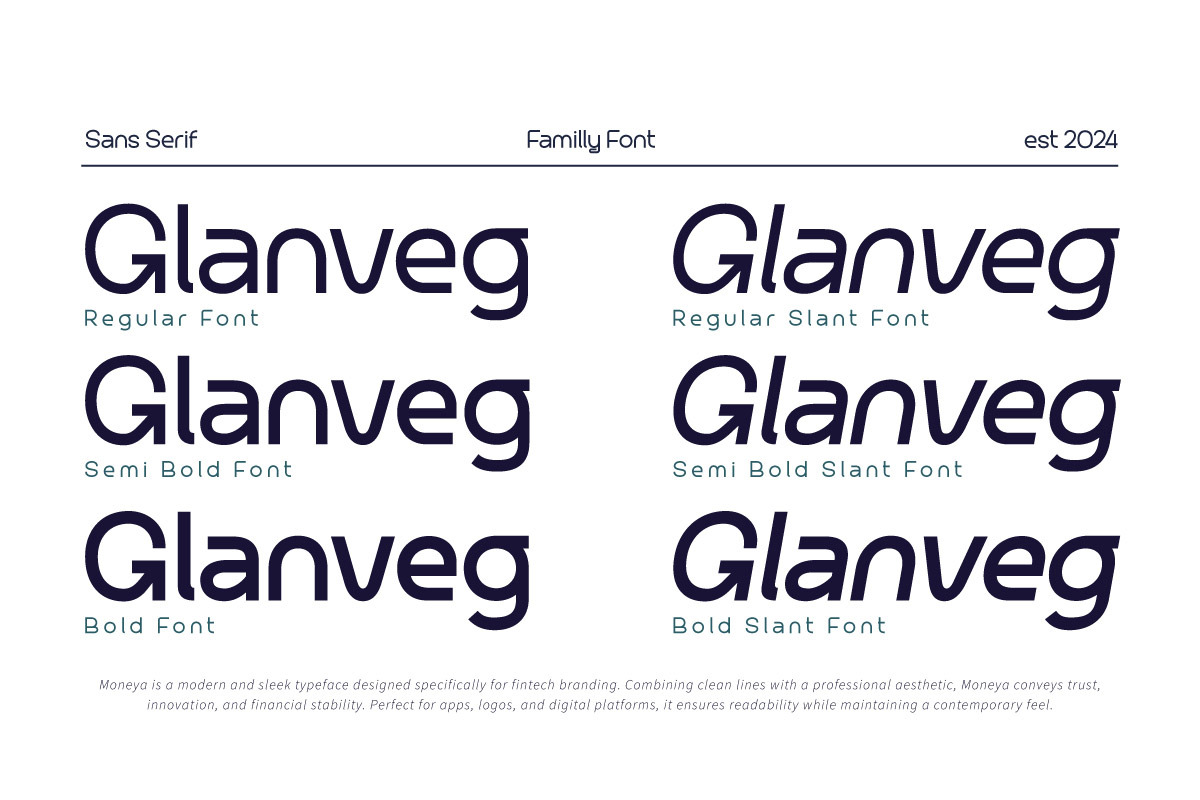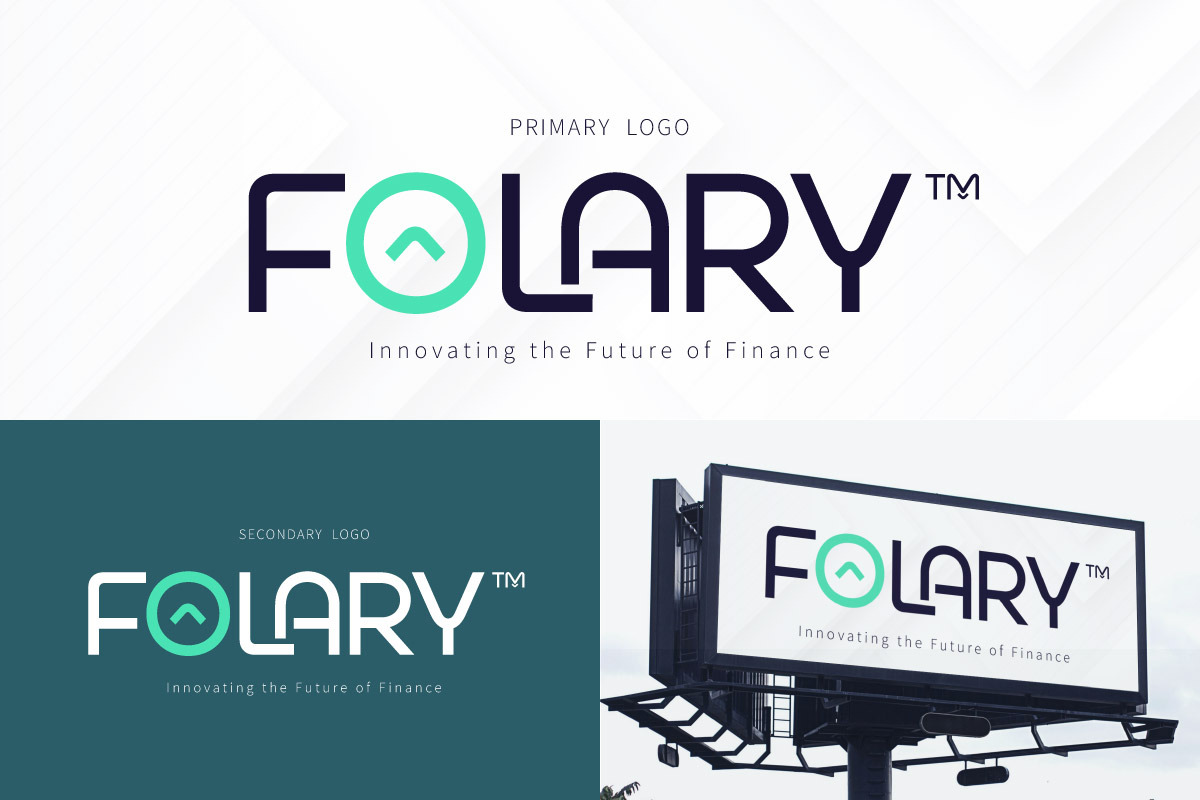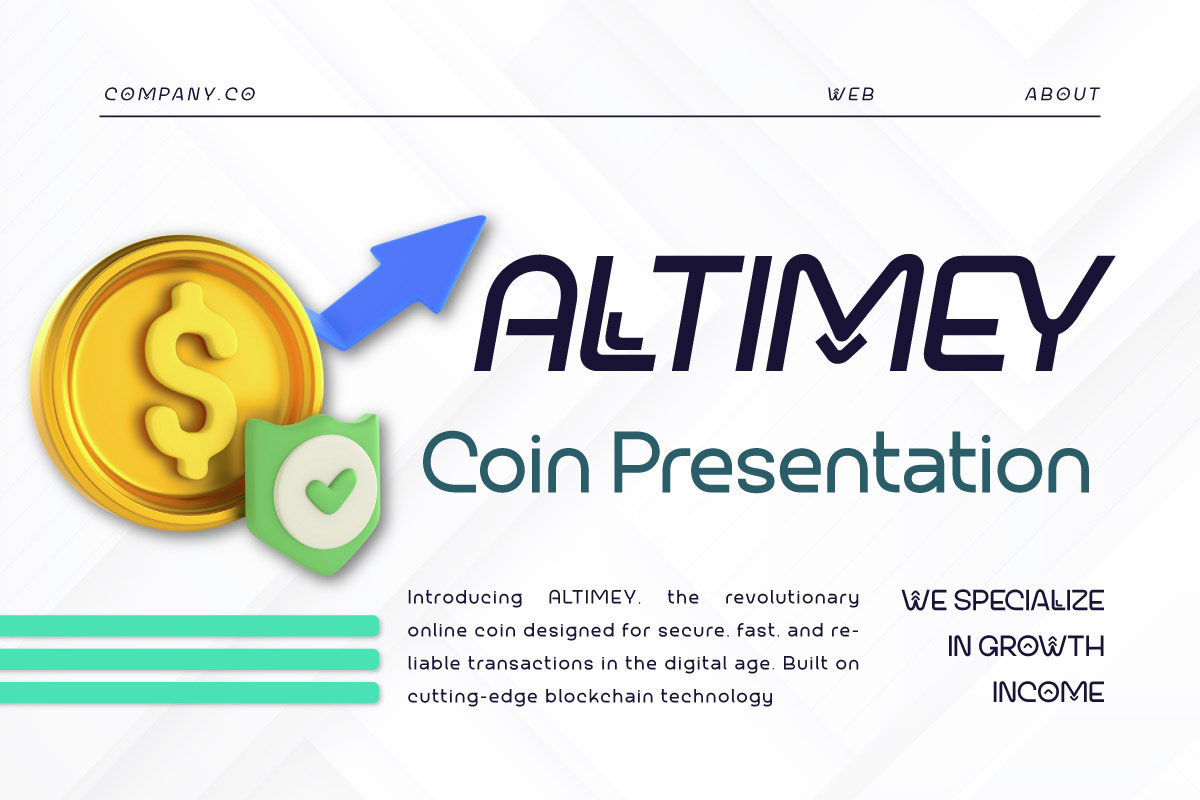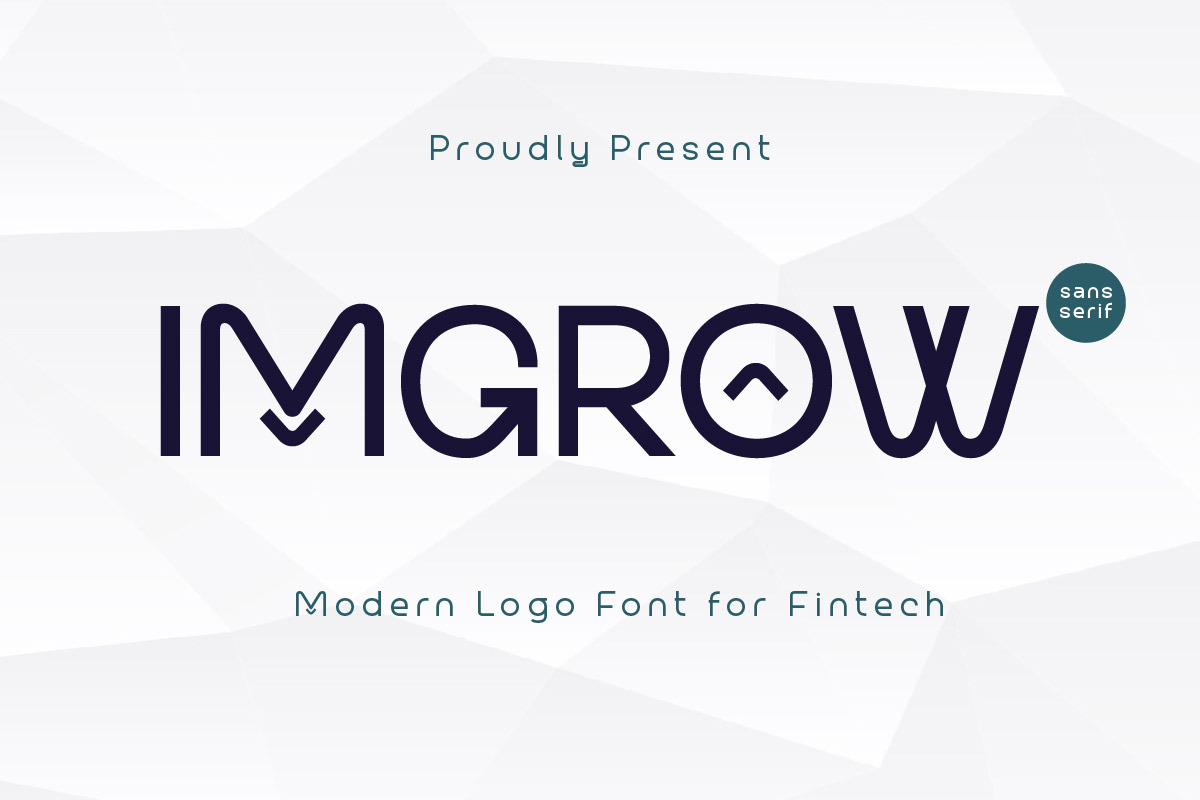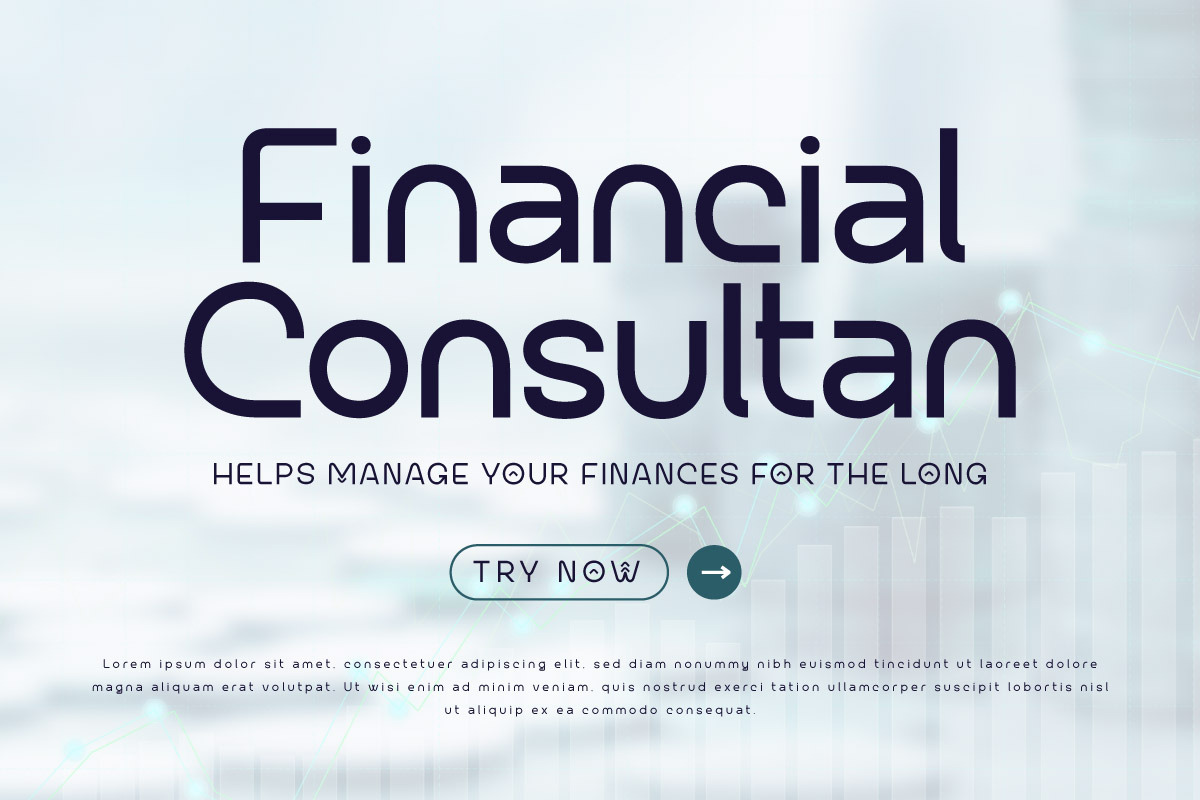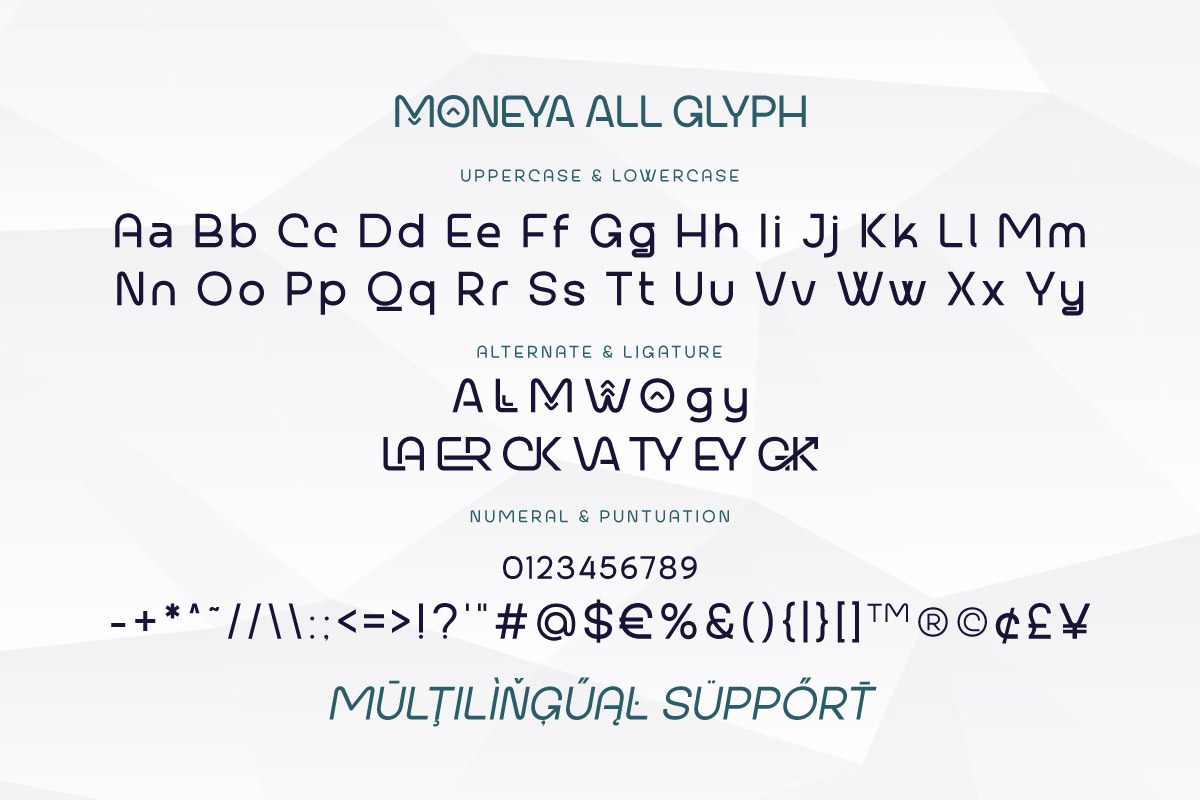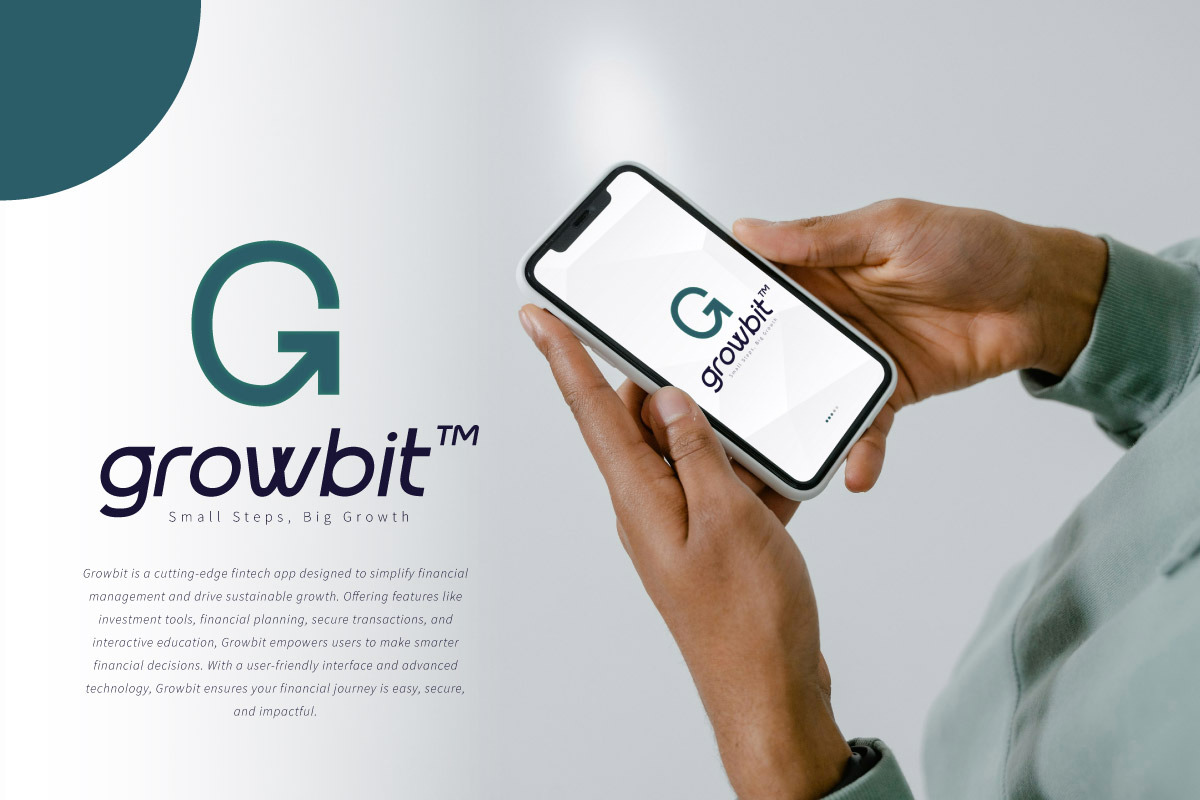
Imgrow - Modern Logo Font
Imgrow - Fintech Logo Font is a sleek and professional typeface designed specifically for financial and technology branding. With its clean, modern letterforms, Imgrow exudes trust, innovation, and sophistication, making it ideal for fintech startups, banking apps, investment platforms, and corporate identities. This font enhances your designs with a sense of reliability and forward-thinking style.
Build trust and innovation into your branding with Imgrow, the perfect choice for the financial technology world.